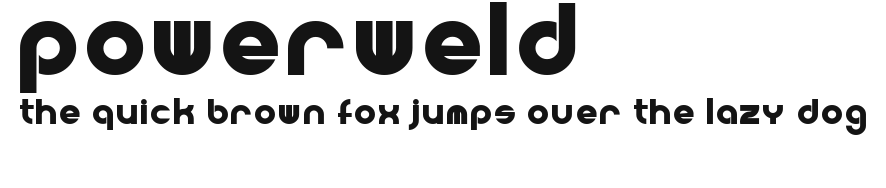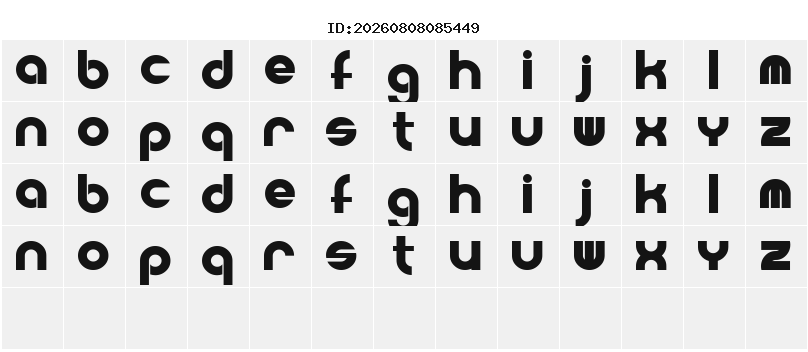
Powerweld.ttf is a modern, elegant sans-serif font designed for ultimate readability and visual harmony. Perfect for branding, headlines, web design, and print materials.